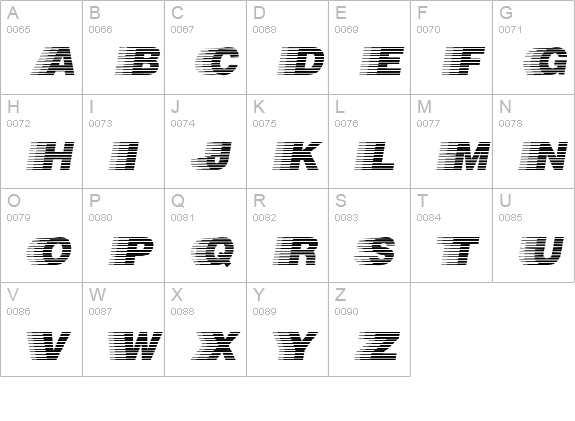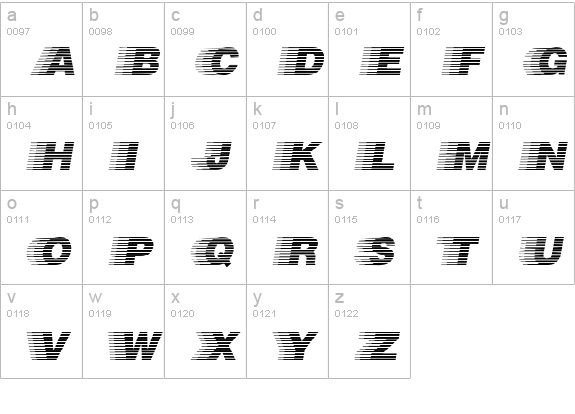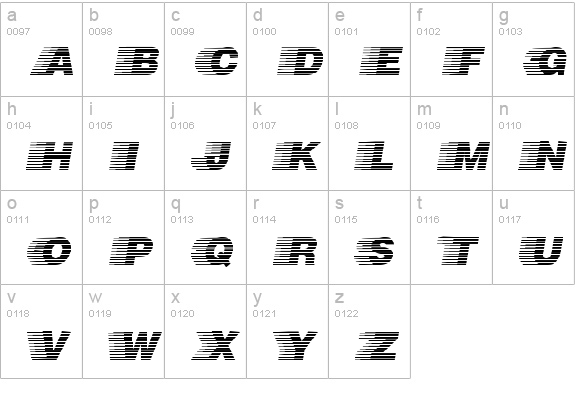
Speedway Font Details
Speedway font is a sleek and stylish typeface that effortlessly combines modernity with a touch of ruggedness. Its strong and bold letterforms exude confidence and energy, making it the perfect choice for projects that require a strong visual impact. Whether you're creating eye-catching headlines, attention-grabbing posters, or striking logos, Speedway font will make your designs stand out from the crowd. What sets Speedway font apart is not just its captivating aesthetics, but also the fact that it is available for free. Yes, you read that right – this remarkable font is freely available to download at FontsMarket.com. With just a few clicks, you can enhance your design arsenal with this versatile and captivating typeface, without having to spend a dime. But don't let its price tag fool you – Speedway font is of the highest quality. Its clean and crisp lines ensure legibility at various sizes, making it suitable for both print and digital applications. Whether you're designing for a magazine spread, website, or even a mobile app, Speedway font will ensure that your message is effortlessly conveyed to your audience. With its wide range of weights and styles, Speedway font offers ample versatility for your design needs. From the bold and impactful Regular weight, to the sleek and elegant Italic variation, there is a style to suit every creative vision. The characters are meticulously crafted, with attention to detail evident in every curve and stroke, resulting in a truly refined and polished typeface. So why wait? Embrace the power and allure of Speedway font, and elevate your designs to new heights. Download this exceptional typeface for free at FontsMarket.com and experience the freedom to create captivating visuals that leave a lasting impression. Unleash your creativity with Speedway font and let your designs roar with style and sophistication.